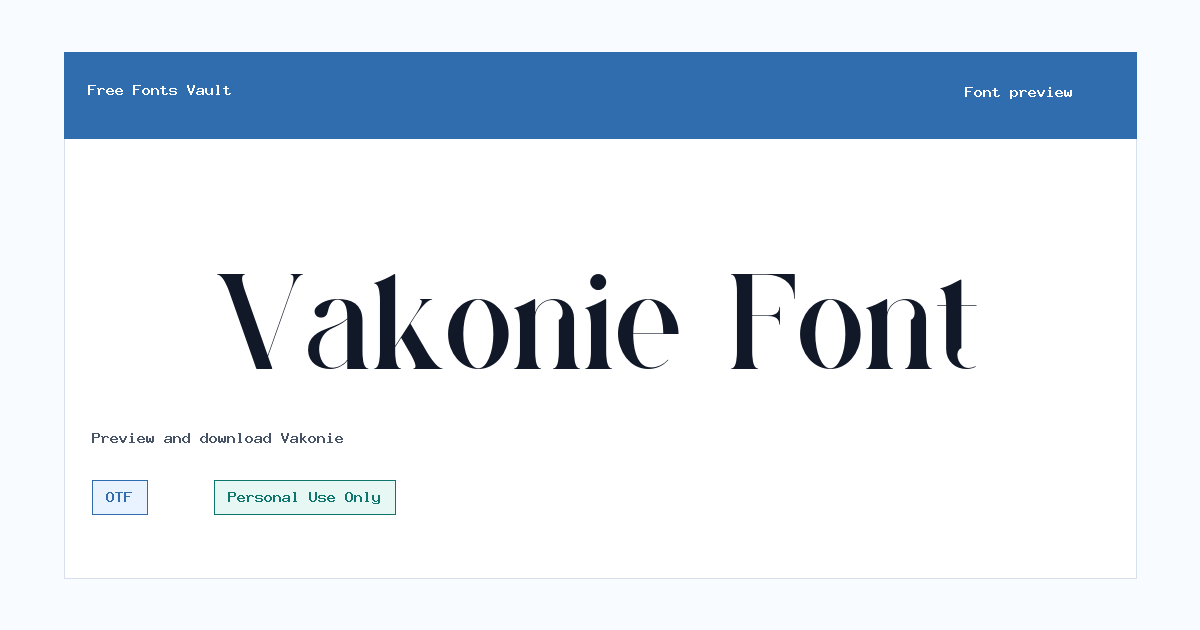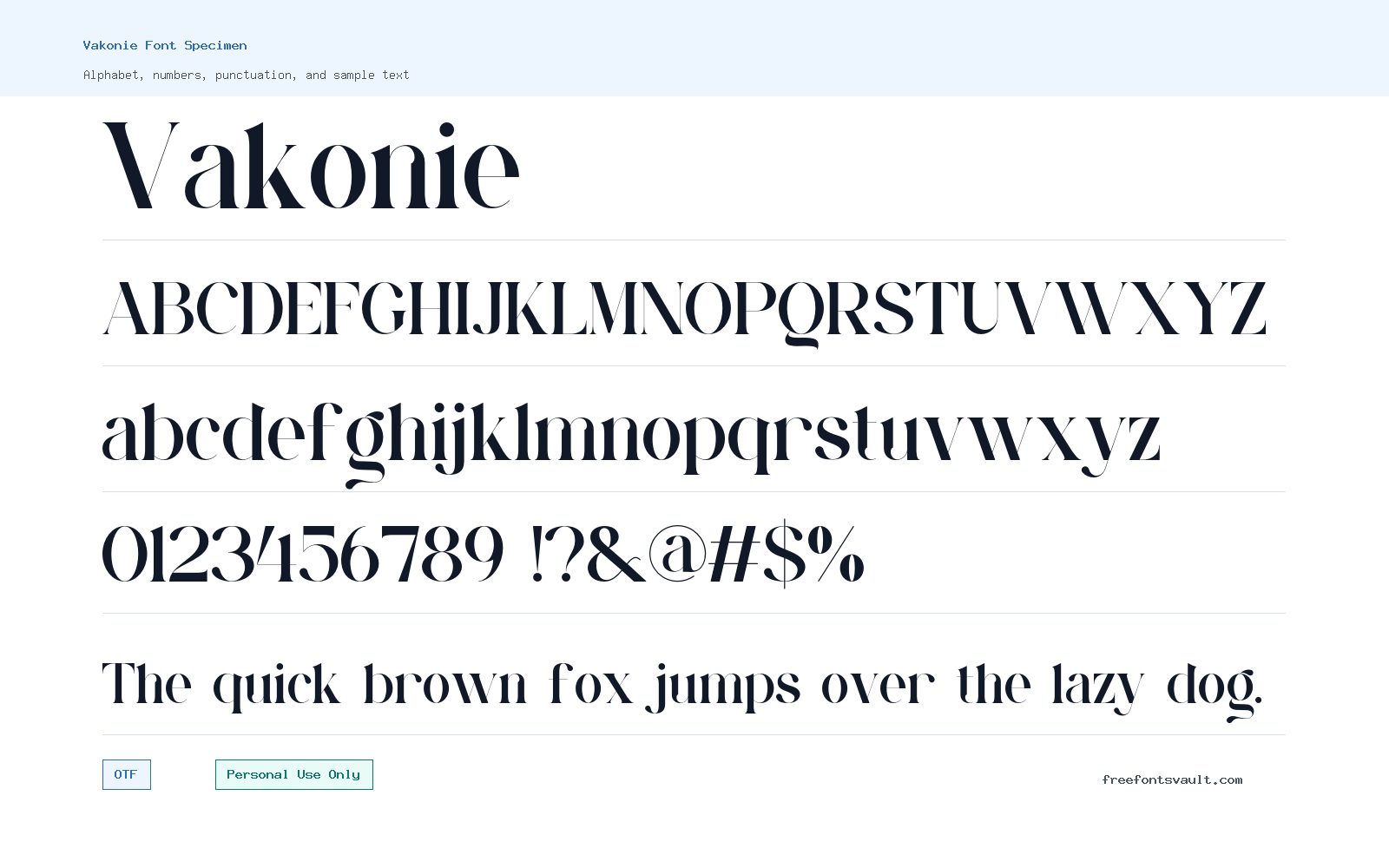
Vakonie
Vakonie Font
Vakonie is a serif font from ErmediaStudio with a Regular OTF file for personal-use design projects. It is best approached as a display typeface to test in short, expressive text such as names, titles, poster lines, and visual mockups.
About Vakonie
Vakonie is presented as a serif font, which makes it a good candidate when you want lettering with a more shaped, editorial, or classic feel than a plain sans serif. Because only the Regular style is listed, the safest way to use it is in focused display settings rather than complex type systems that need many weights. Try it first with the exact words you plan to use: a brand name, a headline, a quote, a book-style title, or a short invitation line. Serif display fonts can change character quickly depending on letter combinations, so previewing uppercase, lowercase, numbers, and punctuation will help you decide whether Vakonie fits the tone of your project.
• Serif font style suited to short headlines, names, titles, and display text.
• Single listed style with normal weight, making it straightforward for simple typography layouts.
• Practical for mockups, posters, logo concepts, invitations, and social graphics where the font is used sparingly.
• Personal logo concepts and name-based typography experiments.
• Poster headlines, event graphics, and short promotional-style layouts for non-commercial use.
• Editorial-style titles, quote graphics, and cover mockups.
• Mood boards, brand direction studies, and presentation drafts.
• Web and app mockups where Vakonie is used as a display heading rather than long body text.
Is Vakonie good for logos?
What should I pair with Vakonie?
Pair it with a neutral sans serif for body text, navigation, and small captions. That keeps Vakonie focused on headings or short display text.
Is Vakonie suitable for long paragraphs?
It is better to test Vakonie first in short text. With only a Regular style listed, it may be more practical for headings and display use than long reading sections.